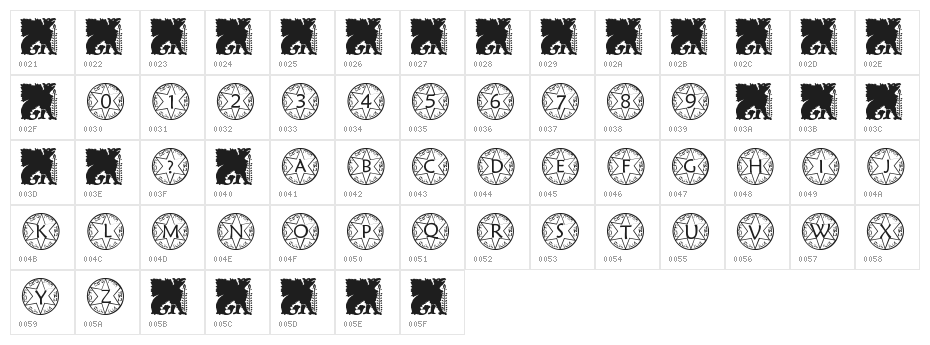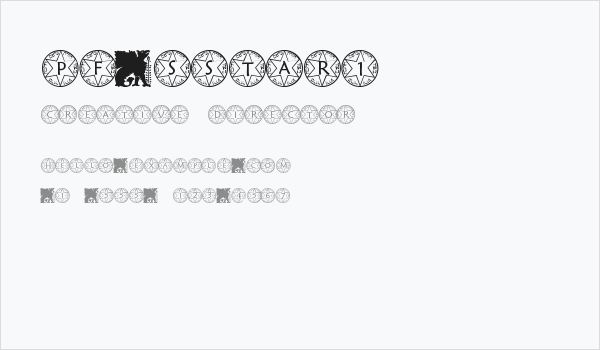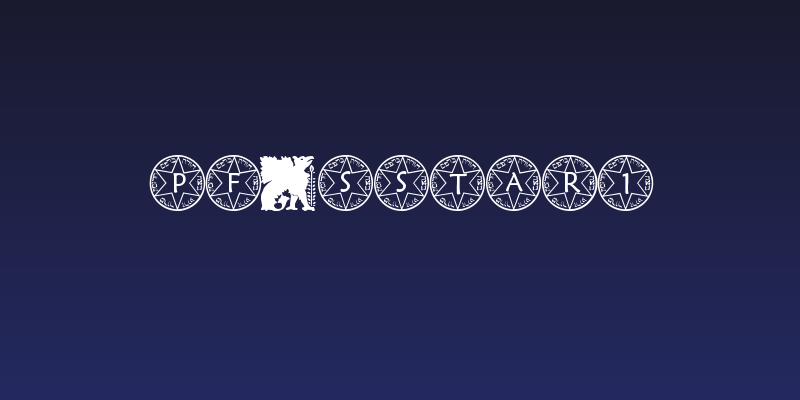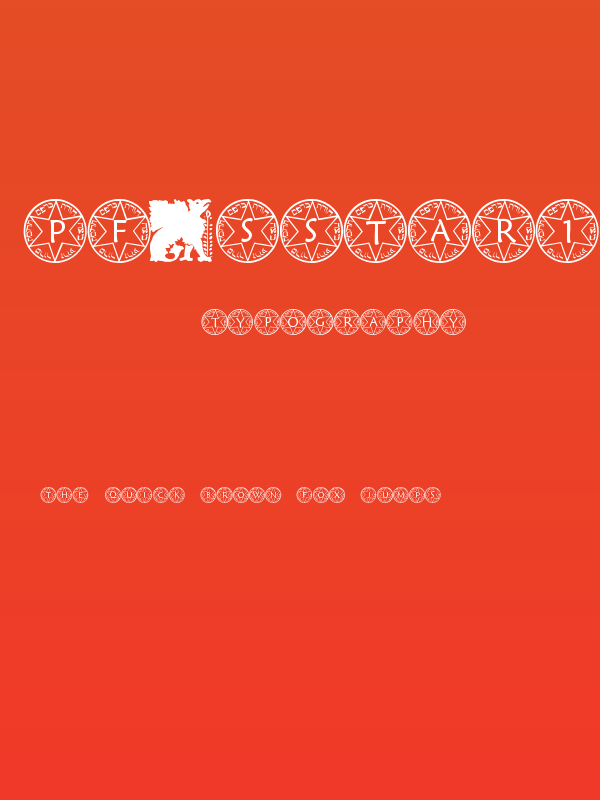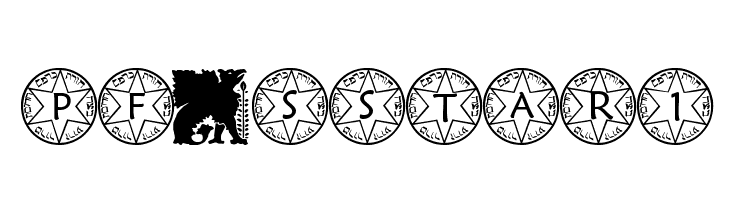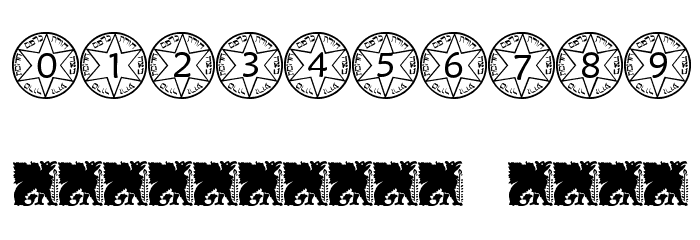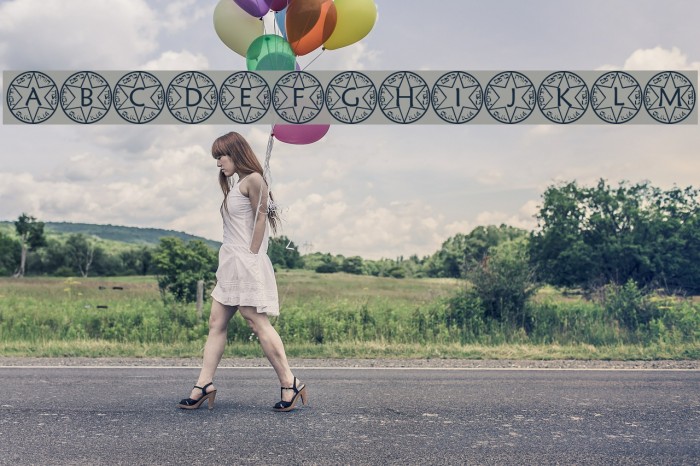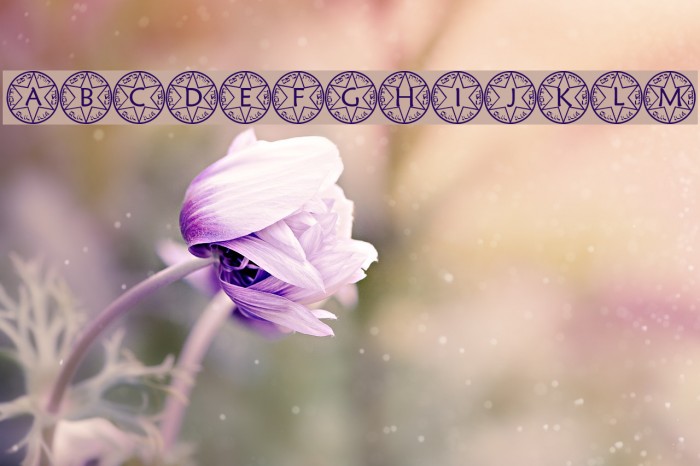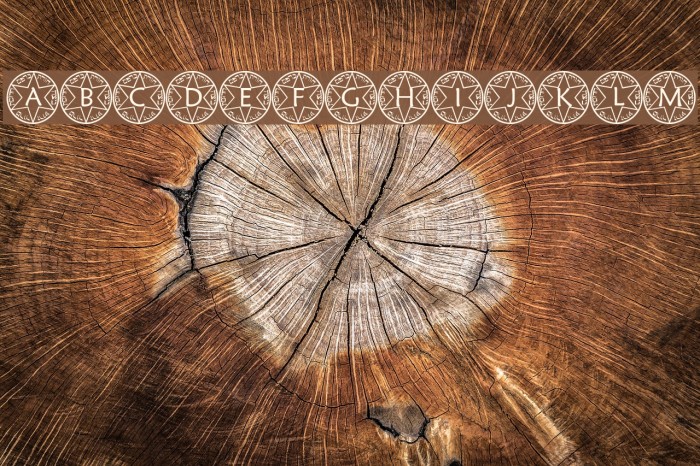
pf_sstar1 Font
pf_sstar1 Description
This decorative font features uppercase and lowercase letters, numbers, and special characters enclosed within circular star-shaped borders. Each character is centered within a circle, giving it a unique and ornamental appearance. The design is reminiscent of ancient or mystical symbols, making it highly suitable for projects that require a touch of fantasy or medieval aesthetics. The characters are bold and distinct, ensuring readability despite the intricate border design. This font is ideal for creative and thematic projects where a strong visual impact is desired.
PF_SSTAR1 UPPERCASE
PF_SSTAR1 LOWERCASE
PF_SSTAR1 OTHER CHARS
| Proposed Projects | Ideal for fantasy-themed designs, game titles, book covers, and decorative posters. |